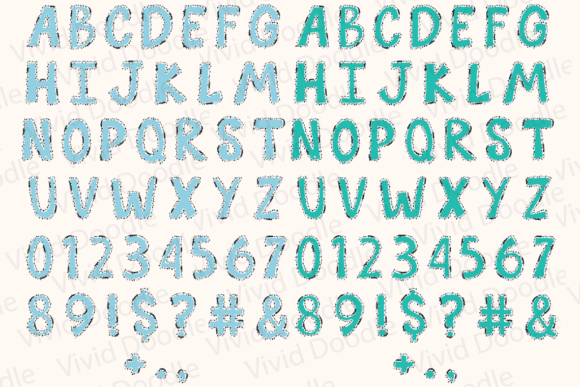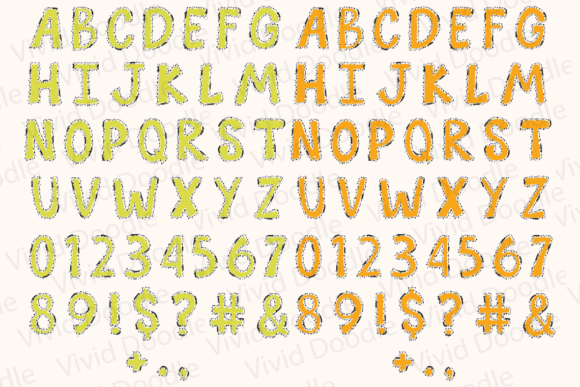
Bright Rainbow School Doodle Font
Bright Rainbow School Doodle Font is a lively and colorful handwritten typeface designed to bring joy and creativity to your projects. With its bold rainbow hues and playful doodle accents, this font is perfect for brightening up birthday invitations, holiday decorations, school projects, posters, and more. Whether you’re working on creative art or graphic design, the vibrant energy of Bright Rainbow School Doodle Font adds a cheerful and festive touch to any project. Let your designs shine with the fun and whimsy of this bright rainbow-inspired font!Note!This product is a color font (Opentype-SVG) and is compatible with PhotoShop, Illustrator, Silhouette, and Inkscape. The OTF and/or TTF files of this product are not compatible with Cricut. For more information on how to use this type of font please check our Ultimate Font Guide .